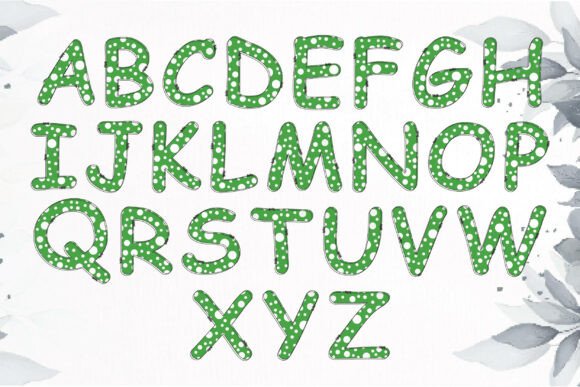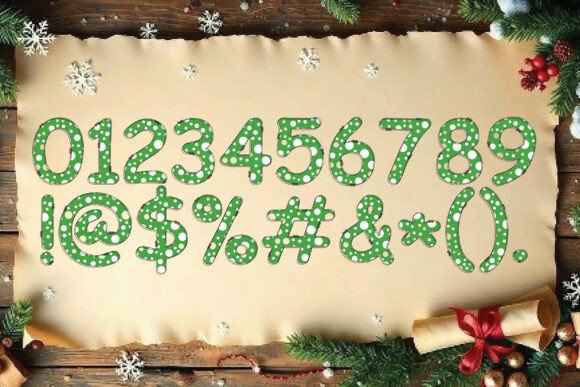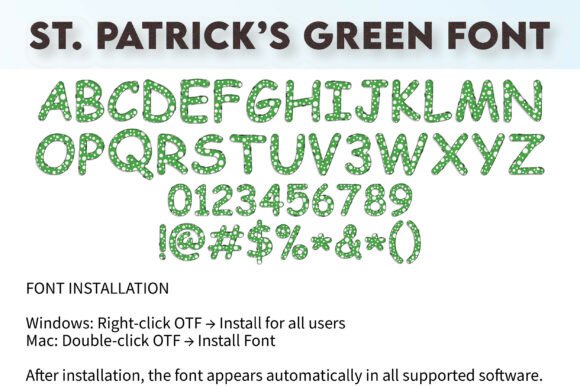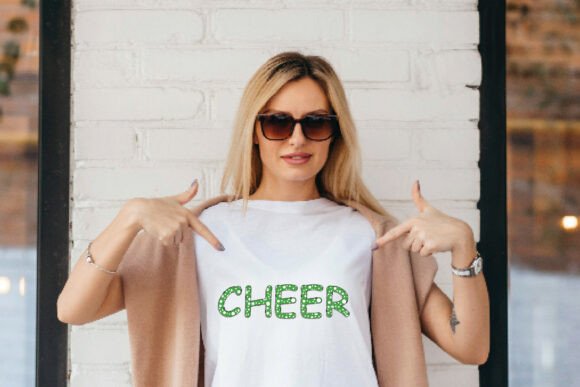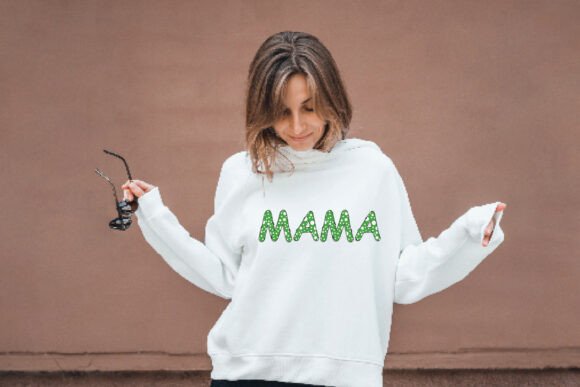
Introduction to Lucky St. Patrick’s Day Font
As a designer, there’s nothing quite like the thrill of discovering a new typeface that perfectly captures the essence of a special occasion. For me, that moment came when I stumbled upon the Lucky St. Patrick’s Day font – a vibrant and playful design that screams ‘celebration’ from the moment you lay eyes on it. The instant I saw the iconic white polka dots on a lush green background, I knew I had to share it with the world.
What makes the Lucky St. Patrick’s Day font truly special is its versatility. Whether you’re working on a high-quality digital project or creating a simple party invitation, this design resource is sure to add a touch of magic to your work. And the best part? It’s a free download, making it accessible to designers of all levels.
With its transparent background and wide range of compatibility, the Lucky St. Patrick’s Day font is the perfect addition to any creative project. From social media graphics to sublimation projects, this design element is sure to bring a smile to your face and a touch of luck to your designs.
- Unique, festive design featuring a “Lucky” theme, ideal for St. Patrick’s Day celebrations and Irish-themed projects
Honest Review: Lucky St. Patrick’s Day Font
I recently stumbled upon the Lucky St. Patrick’s Day Font, and I must say it’s a delightful addition to any design project. The font is perfect for those looking to add a touch of Irish charm to their creative work.
- What works well: ✨ The font’s high-quality design is evident in its smooth lines and crisp typography. The transparent background allows for seamless integration into any design. ✨
- ⚠️ The font is specifically designed for St. Patrick’s Day-themed projects, so it might not be the best choice for more general design work. ⚠️
Overall, the Lucky St. Patrick’s Day Font is a great resource for designers looking to add a festive touch to their projects. While it may have some limitations, its high-quality design and free download option make it a valuable addition to any design library.
This font is perfect for St. Patrick’s Day celebrations, but it can also be used for other creative projects, such as designing Irish-themed graphics or creating a fun and festive atmosphere.